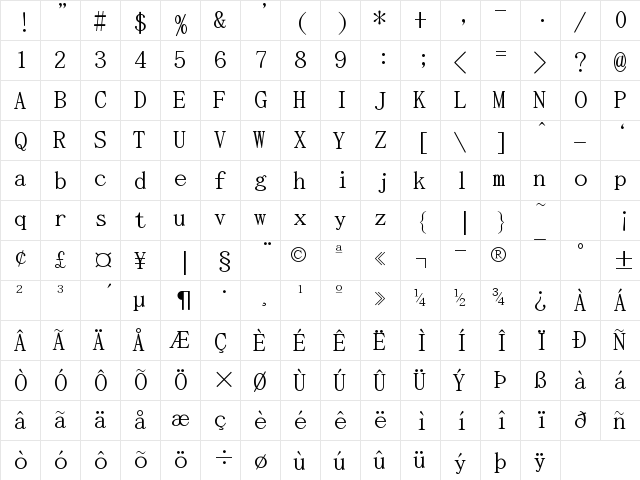
Sazanami Mincho Mincho-Regular
| Foundry | Electronic Font Open Laboratory (/efont/) |
| Designer | Kanji autodesign by CLWFK (Non-kanji glyphs by Yasuyuki Furukawa) |
Design Context for Sazanami Mincho Typeface
Sazanami Mincho offers clean, dependable letterforms without strong stylistic allegiance, making it a practical choice for designers who need flexibility.